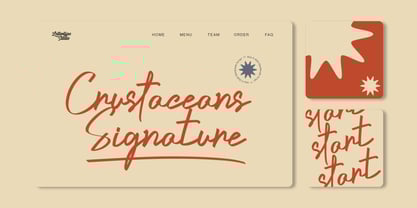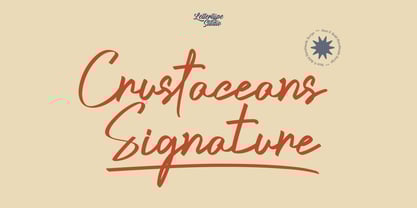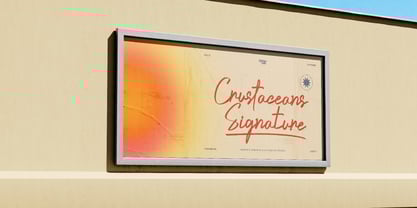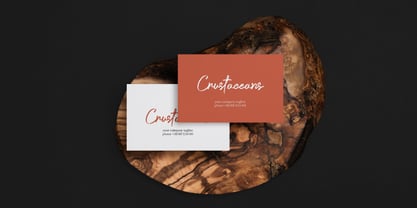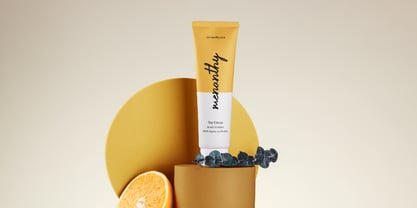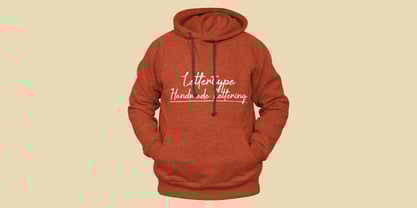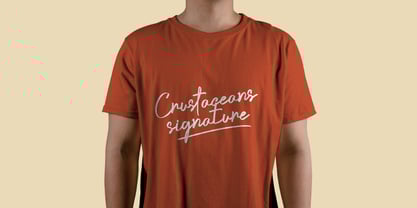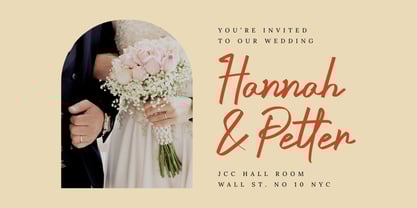
Crustaceans Signature
by Lettertype Studio
The Crustaceans Signature Font Family was designed by Diki Pradipta Tri Atmojo and published by Lettertype Studio. Crustaceans Signature contains 1 styles.
Introducing our new bold, striking, and handmade script font Crustaceans Signature.
Crustaceans Signature is perfect for photography, watermark, social media posts, advertisements, logos & branding, invitation, product designs, label, stationery, wedding designs, product packaging, subheader or header, special events, or anything that need bold script taste.